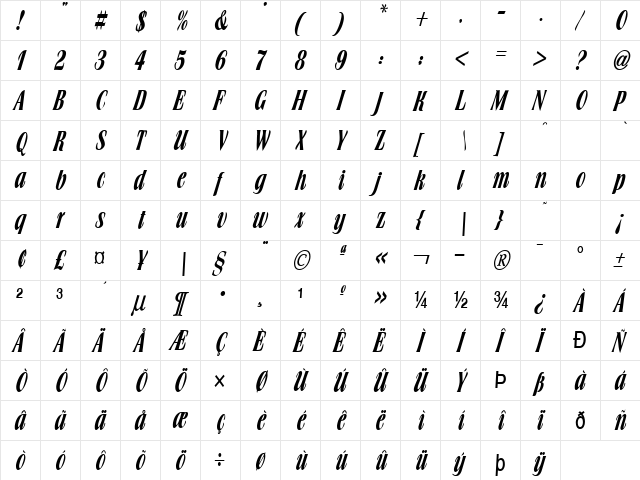
Broach Thin BoldItalic
Design Context for Broach Thin Typeface
Broach Thin is a composed and adaptable typeface that performs quietly and consistently across a wide range of design contexts. Its italic angle brings a sense of urgency and motion to the letterforms. Its bold stroke weight gives it real presence on the page.
Pro Tip: Try Broach Thin for annotation and caption copy alongside an upright companion — the contrast in angle creates a dynamic but ordered typographic system.